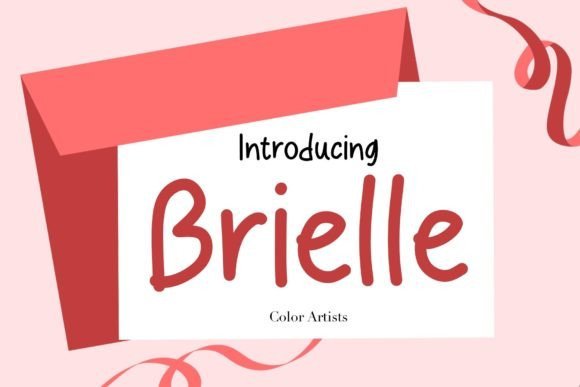
Introduction to Brielle Font
Whether you’re working on wedding invitations, branding materials, or editorial designs, Brielle Font brings a sense of timeless beauty to your creations.
Its flowing characters and stylish flourishes elevate your design to a new level of elegance .
Key Features of Brielle Font
Why Choose Brielle Font?
Brielle Font offers exceptional quality and versatility, making it a valuable addition to your design toolkit. Whether you’re creating for personal projects or commercial use, Brielle Font delivers professional results.